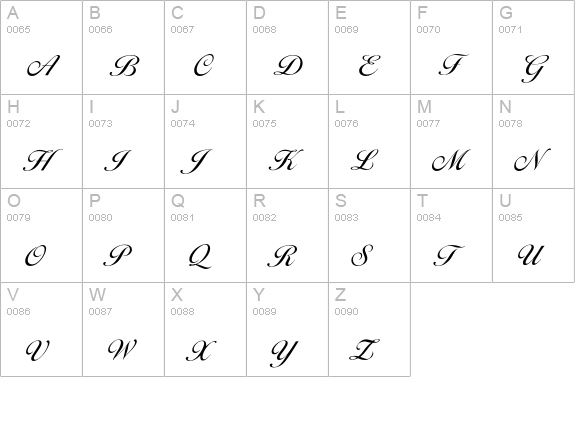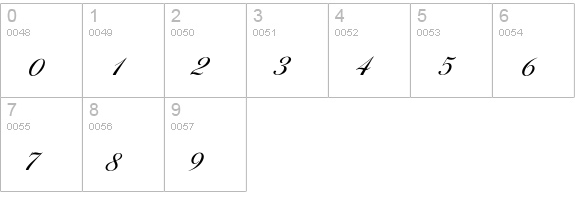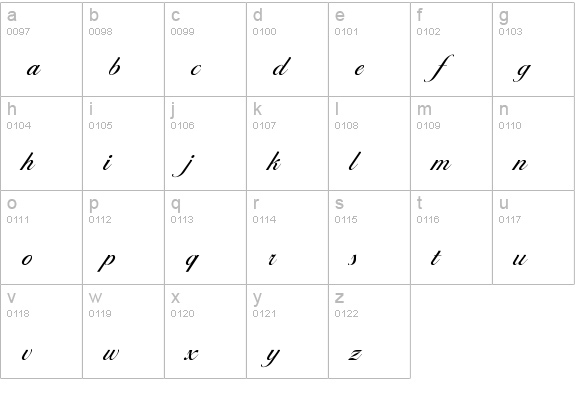
Ballantines-Regular is the standard, neutral variant in the Ballantines typeface family \xE2\x80\x94 well suited to general body text, paragraphs, and standard typographic work.
Ballantines-Regular font is a versatile and elegant typeface that exudes a timeless sophistication. Its clean lines and classic design make it perfect for a wide range of projects, from branding to editorial design. The font strikes a balance between modernity and tradition, making it suitable for both digital and print applications. What sets Ballantines-Regular apart is its excellent legibility and readability, making it ideal for body text as well as headlines. The font's consistent spacing and well-defined letterforms ensure that your message comes across clearly and effectively. Best of all, Ballantines-Regular is freely available to download at FontsMarket.com, making it accessible to designers and creatives looking to elevate their work with a high-quality typeface. Whether you're working on a branding project, creating a website, or designing a publication, Ballantines-Regular is a reliable choice that will enhance the overall look and feel of your designs.